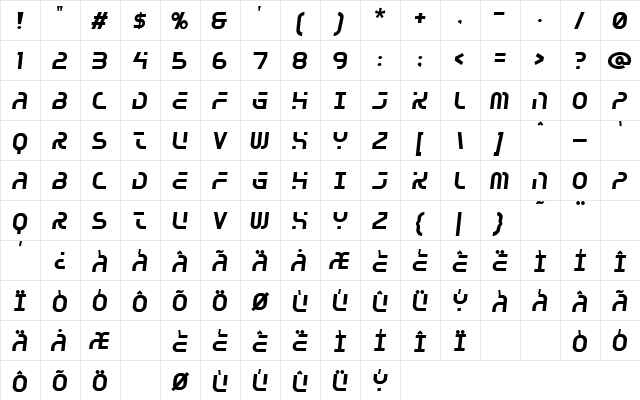
Greenhouse gas Regular
Greenhouse gas Family
Design Context for Greenhouse gas
Greenhouse gas is a composed and adaptable typeface that performs quietly and consistently across a wide range of design contexts.